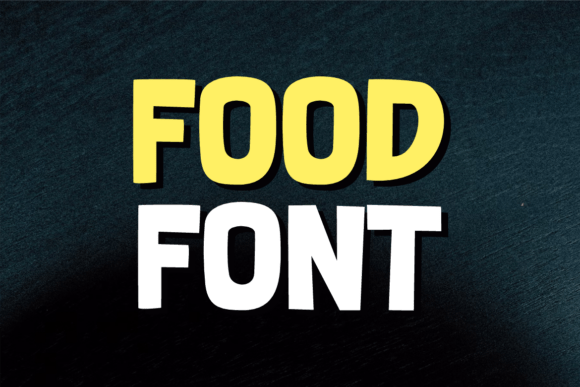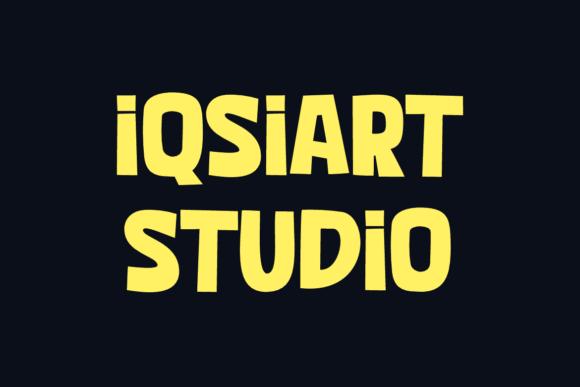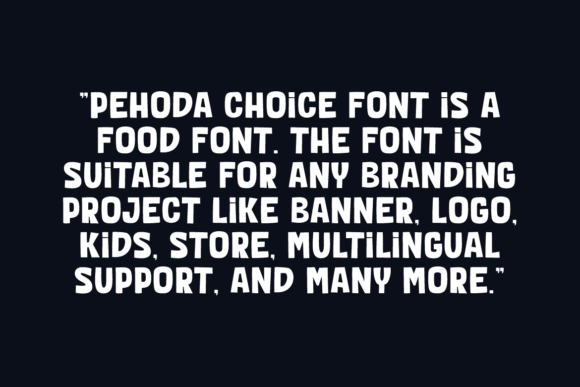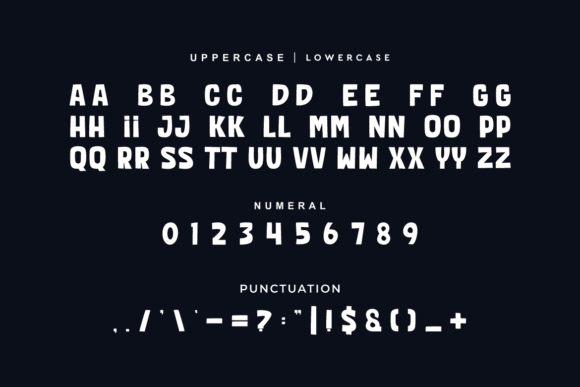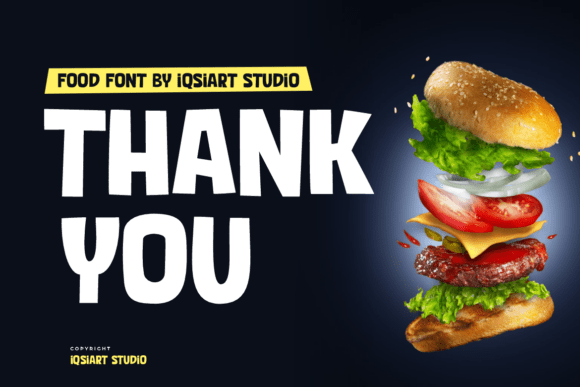
Introduction to Pehoda Choice Font Font
Fonts play a crucial role in design, and the Pehoda Choice Font font is a typeface that brings both character and versatility to any project. Whether you’re working on a branding project, a website, or a print design, the Pehoda Choice Font font offers a unique style that can elevate your work.
Pehoda Choice is a sweet and friendly sans serif font.
Key Features of Pehoda Choice Font Font
Why Choose Pehoda Choice Font Font?
The Pehoda Choice Font font is more than just a typeface – it’s a design tool that helps you communicate your message with style and clarity. Its unique character set and versatile design make it suitable for a wide range of applications, from elegant invitations to bold headlines.
With its carefully crafted letterforms and balanced proportions, the Pehoda Choice Font font ensures readability and visual appeal across all mediums.
What makes Pehoda Choice Font font special?
The Pehoda Choice Font font stands out with its unique design, exceptional readability, and versatility across various design applications.